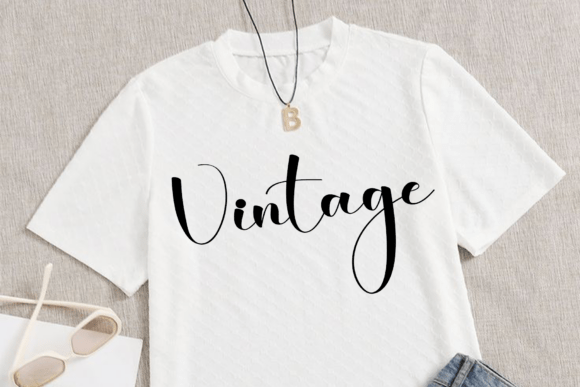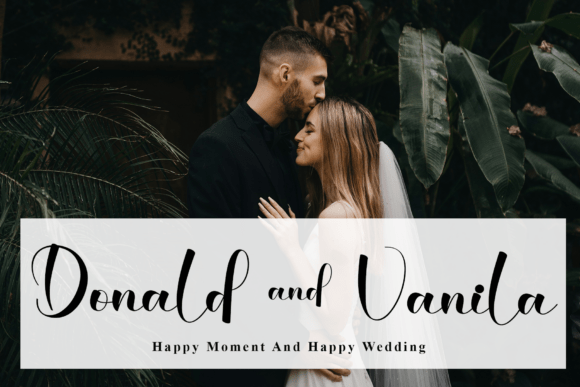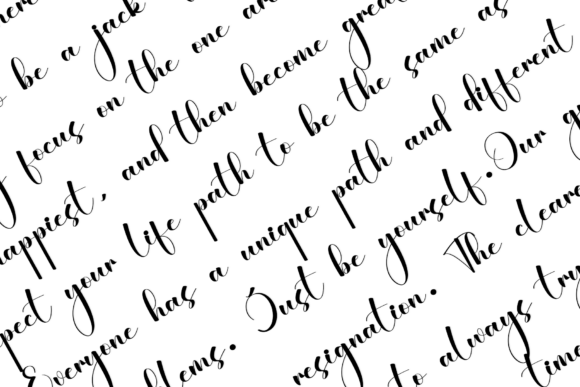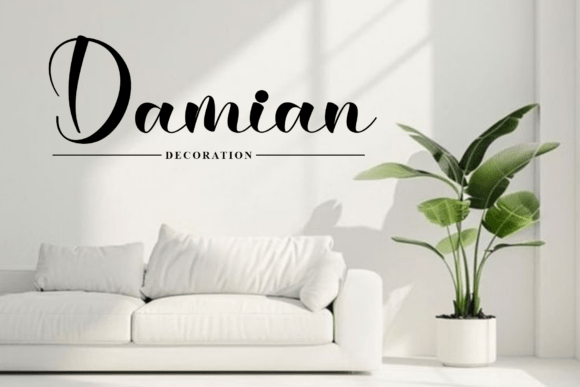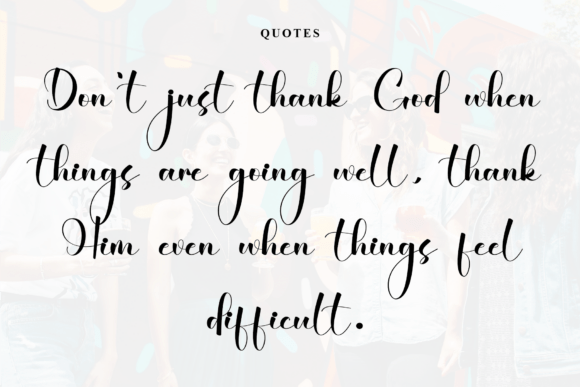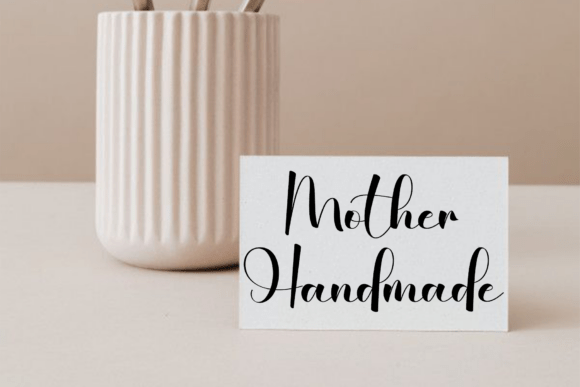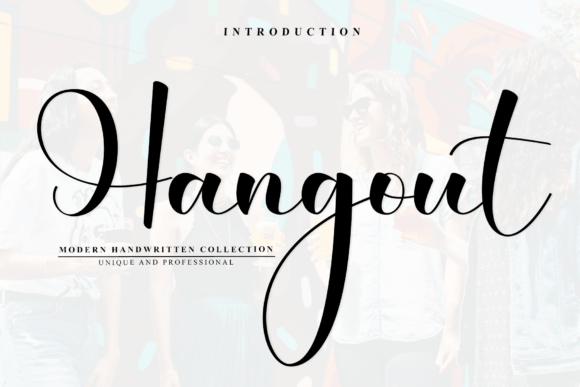
Introducing Hangout: The Ultimate Modern Handwritten Script Font
Are you tired of using the same old fonts for your designs? Look no further! Hangout is a stylish and modern handwritten script font that is sure to elevate your creative projects. With its unique blend of casual charm and elegant sophistication, Hangout is perfect for designers, crafters, and anyone looking to add a touch of warmth and modern flair to their designs.
The Characteristics of Hangout Font
Hangout font is a beautifully crafted script font that boasts flowing strokes and smooth curves, creating a natural and authentic feel. Its elegant and refined design makes it perfect for a wide range of applications, from invitations and logos to branding, social media posts, and lifestyle projects. The font’s versatility and expressiveness make it an ideal choice for both personal and professional use.
What Makes Hangout Font Stand Out
Hangout font stands out from the rest due to its unique characteristics. Here are a few features that make it a must-have for designers and crafters:
- Handwritten script: Hangout’s handwritten script design gives it a personal and authentic feel, making it perfect for projects that require a touch of warmth and personality.
- Modern and elegant: The font’s modern and elegant design makes it suitable for a wide range of applications, from luxury brands to lifestyle projects.
- Versatile: Hangout font is incredibly versatile, making it perfect for use in various design projects, including invitations, logos, branding, social media posts, and more.
Hangout font is a dream come true for designers and crafters. Its unique design and versatility make it perfect for a wide range of projects, including:
- Invitations: Whether it’s a wedding invitation, birthday party, or baby shower, Hangout font is perfect for creating beautiful and elegant invitations.
- Logos and branding: Hangout font is an excellent choice for logos and branding projects, as it can help create a unique and memorable identity for your business or brand.
- Social media posts: With Hangout font, you can create stunning social media posts that are sure to grab attention and engage your audience.
- Lifestyle projects: Hangout font is also perfect for lifestyle projects, such as scrapbooking, card making, and other paper crafts.
- Pair it with other fonts: Hangout font looks great when paired with other fonts. Experiment with different combinations to create a unique and visually appealing design.
- Experiment with swashes: Hangout font comes with a range of swashes and alternate characters. Experiment with these to add a touch of personality to your designs.
- Use it for headlines and titles: Hangout font is perfect for headlines and titles, as it can help create a bold and eye-catching design.
In conclusion, Hangout font is a stylish and modern handwritten script font that is perfect for designers, crafters, and anyone looking to add a touch of warmth and modern flair to their designs. Its unique characteristics, versatility, and expressiveness make it an ideal choice for a wide range of applications. Whether you’re working on a personal or professional project, Hangout font is sure to elevate your designs and help you create something truly special.